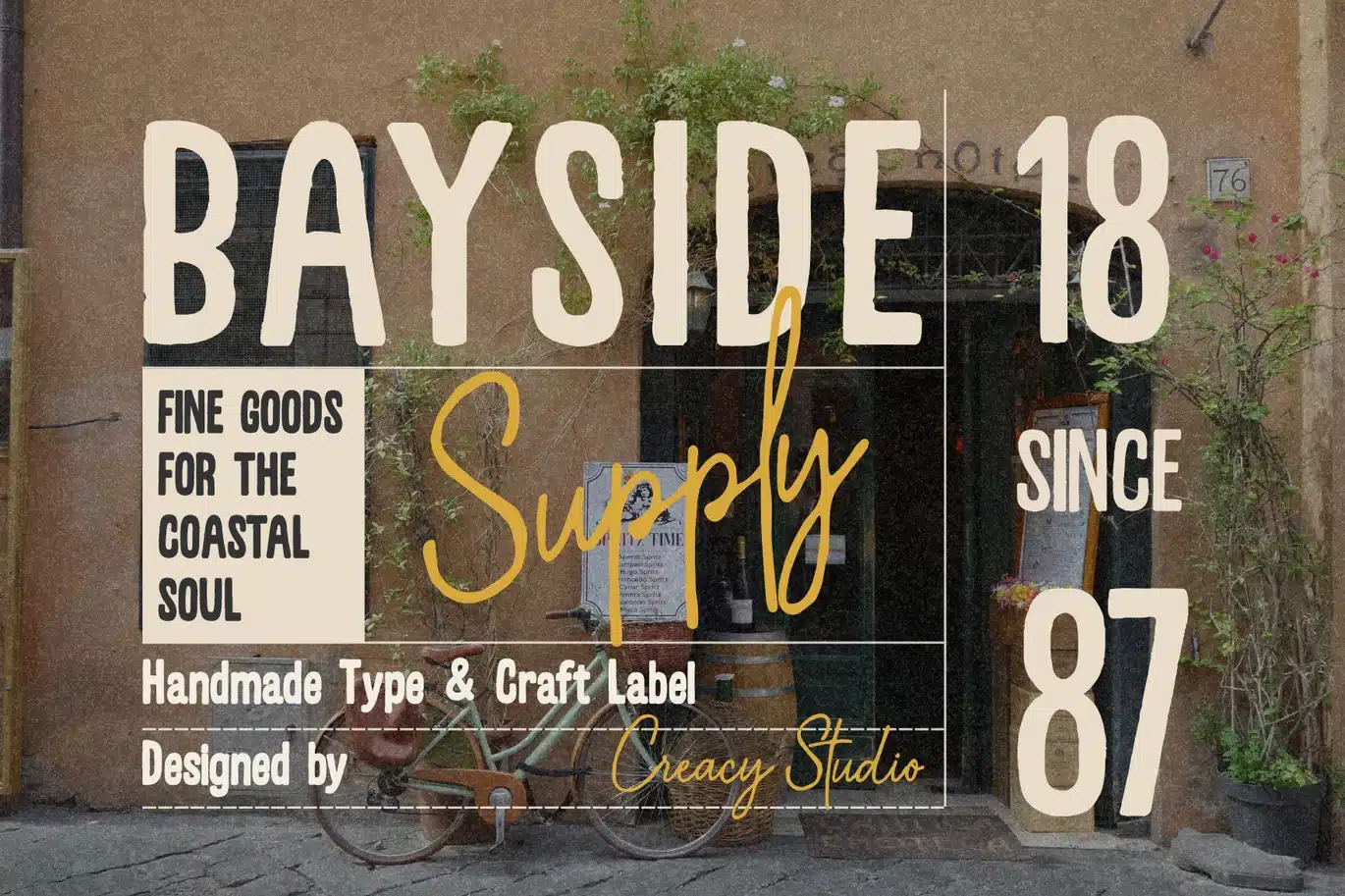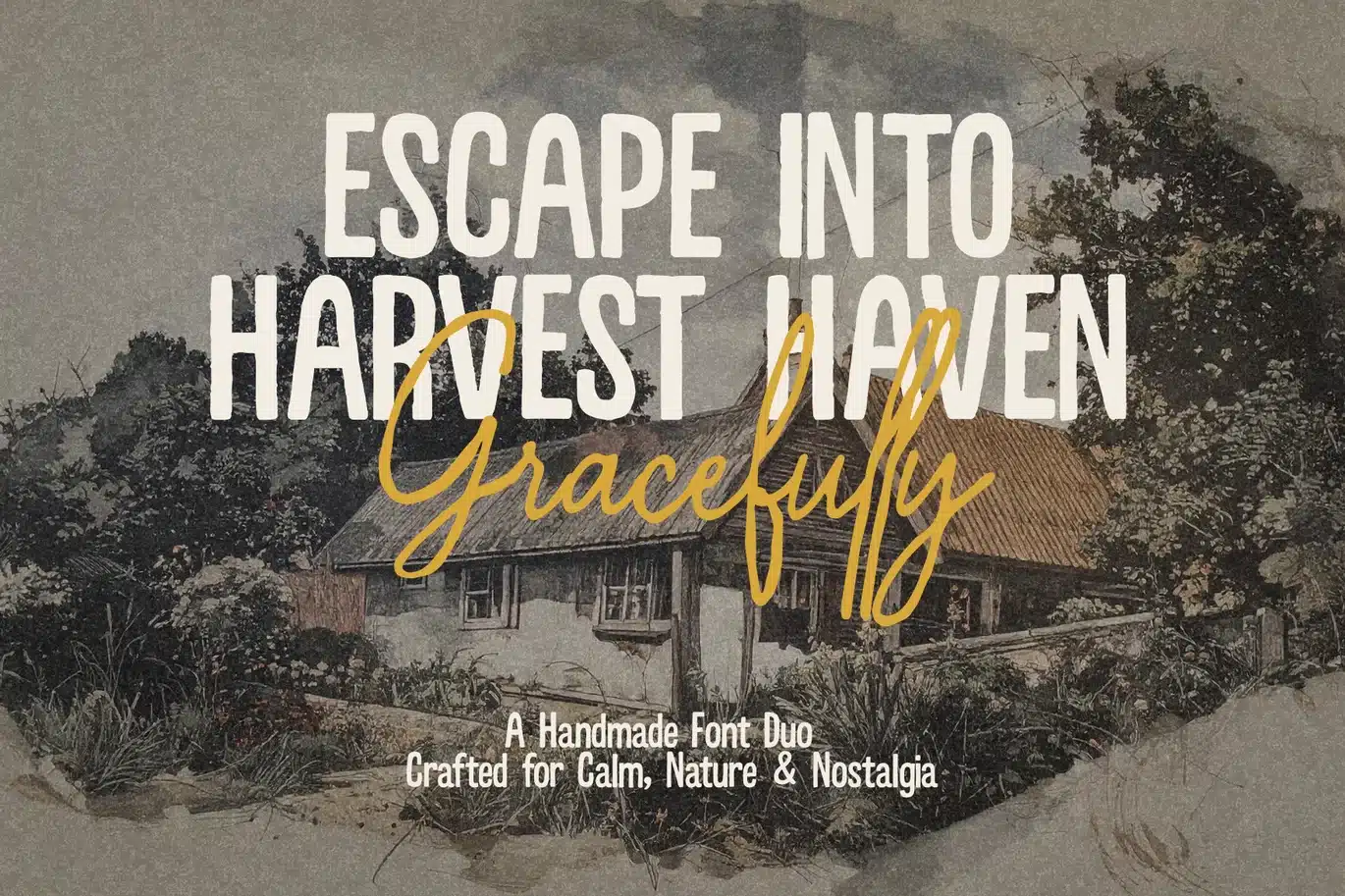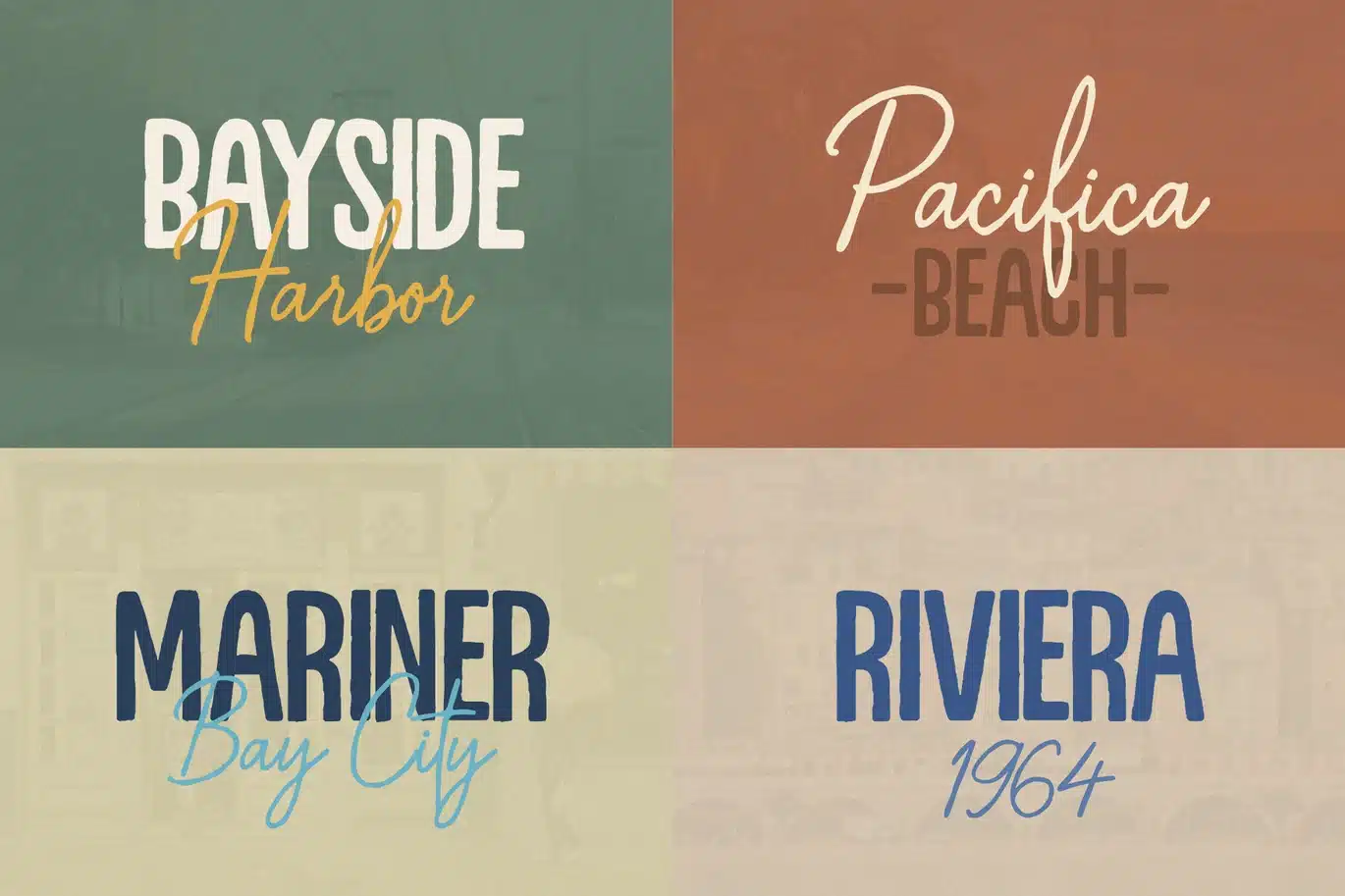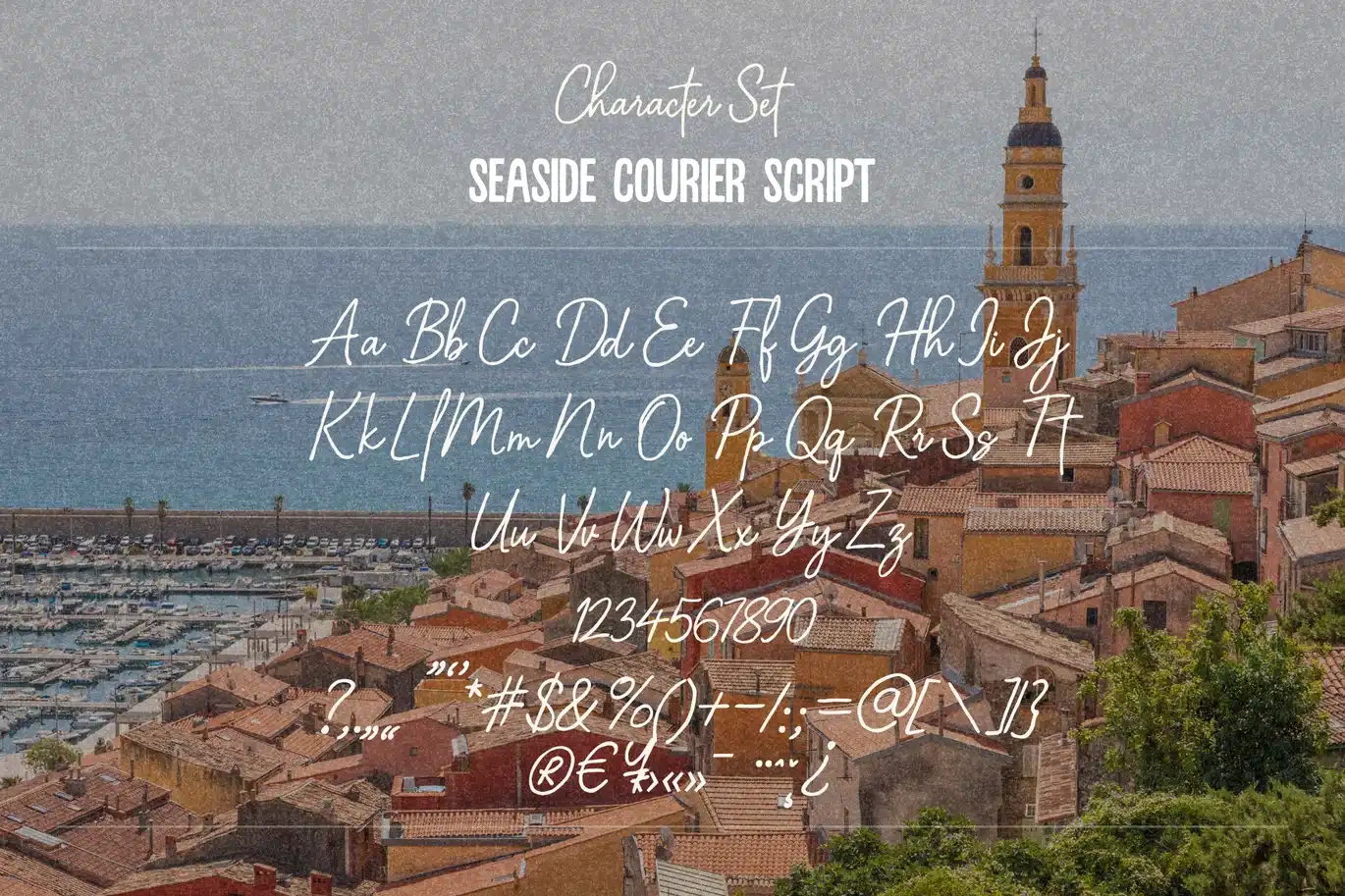
Seaside Courier – Handmade Sans & Script Font Duo
Seaside Courier is a handmade sans & script font duo inspired by coastal towns, vintage signage, and nostalgic travel posters.
This typeface blends the warmth of hand-painted letters with a relaxed seaside aesthetic—perfect for branding that feels timeless, organic, and handcrafted.
Use the Sans for bold headlines, café logos, and packaging; and the Script for elegant accents, taglines, or signature-style branding.
Together, they create a natural harmony—modern yet filled with rustic charm.
Ideal for: coastal branding, artisan labels, travel posters, cafés, bakeries, and retro lifestyle products.
- Handmade Sans & Script Duo
- Perfect for Coastal, Vintage & Craft Branding
- Works great in logos, packaging, posters & social media graphics